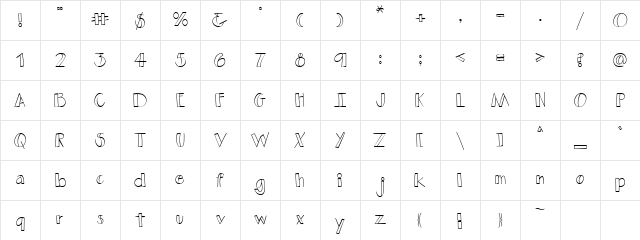
Lindsay Broadway Regular
Design Context for Lindsay Broadway
Lindsay Broadway is a composed and adaptable typeface that performs quietly and consistently across a wide range of design contexts.